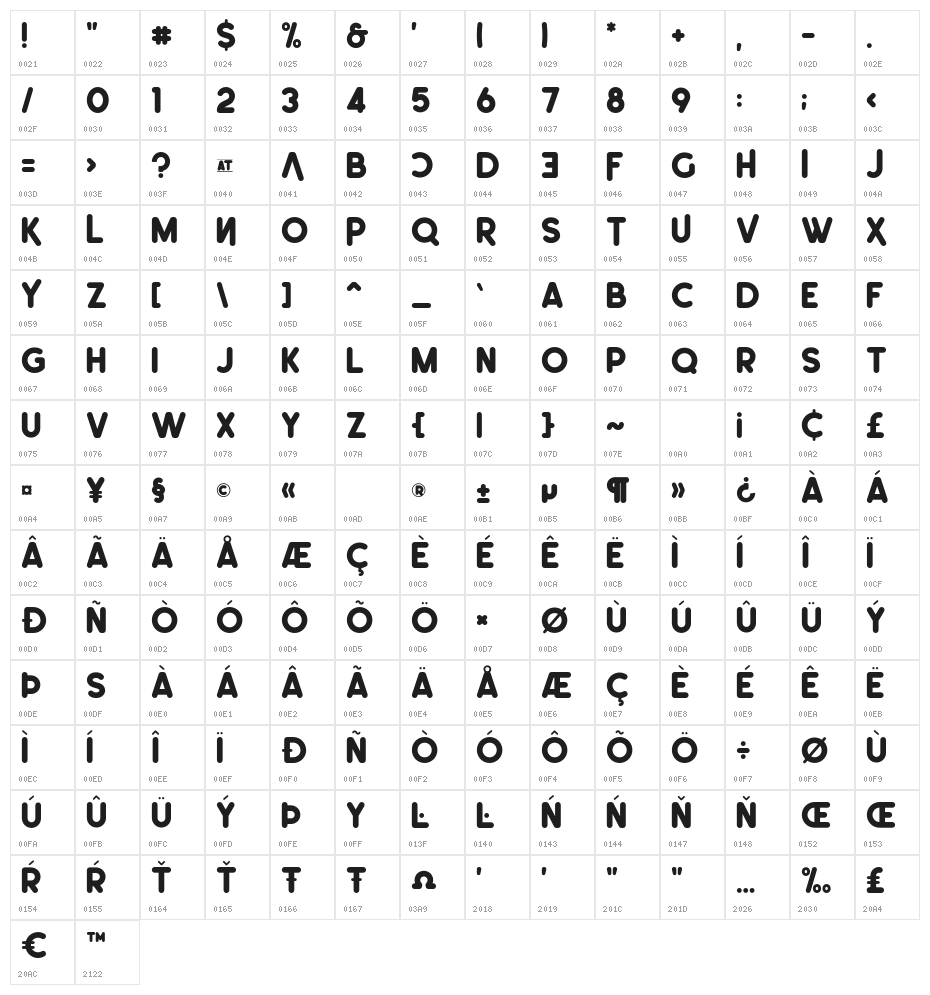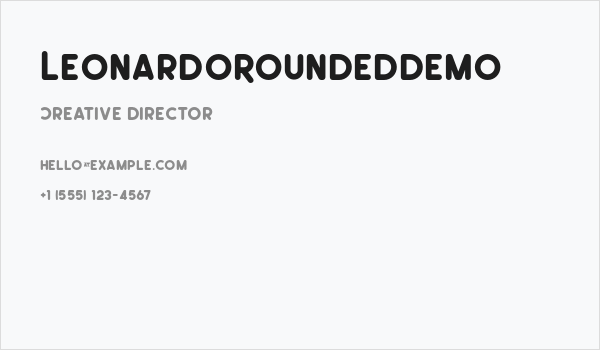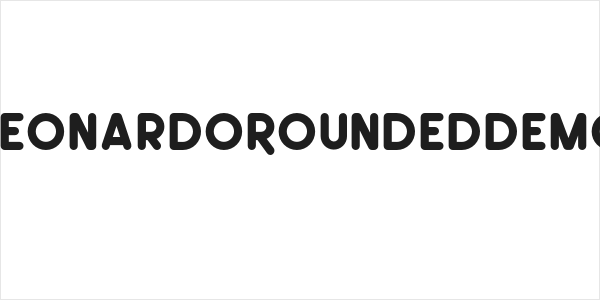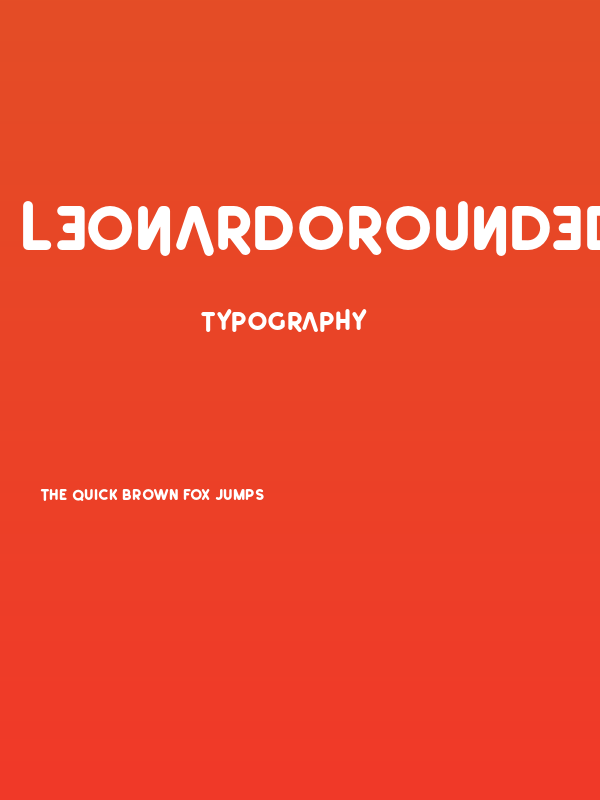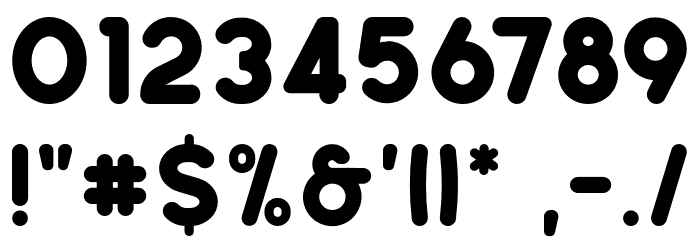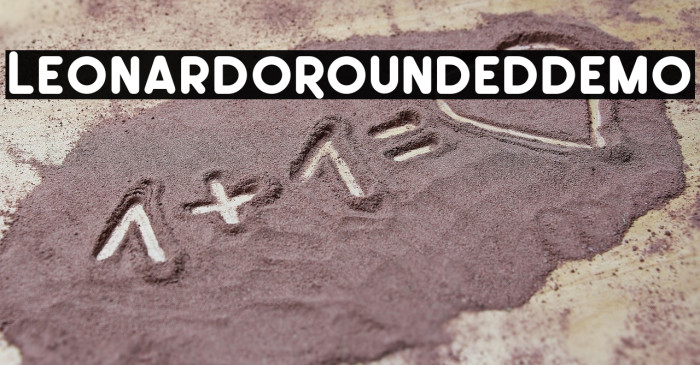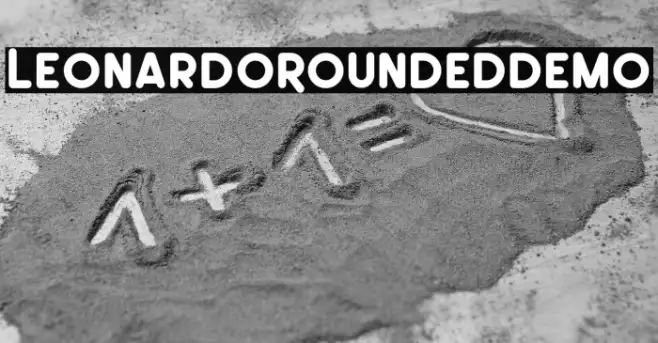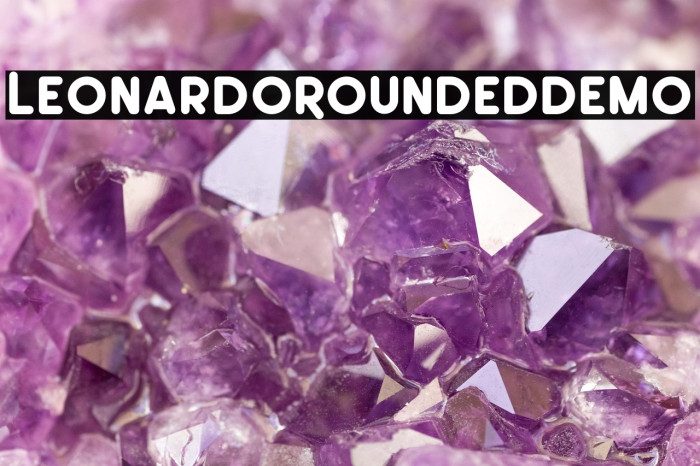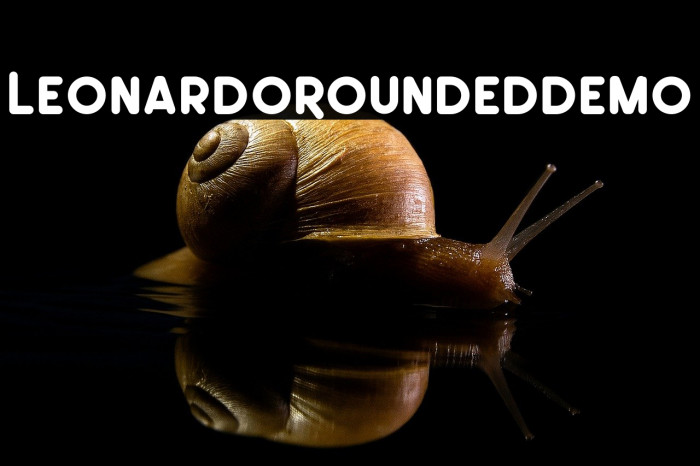
LeonardoRoundedDemo Font
LeonardoRoundedDemo Description
This font features a bold, rounded style with smooth curves and a friendly appearance. The characters are evenly spaced, providing a clean and modern look. The rounded edges give it a soft, approachable feel, making it suitable for a variety of design projects. The numbers and special characters maintain the same rounded aesthetic, ensuring consistency across all elements. This font is versatile, offering a contemporary vibe that can be used in both digital and print media.
| Proposed Projects | Ideal for branding, signage, children's books, and digital media where a welcoming and modern look is desired. |